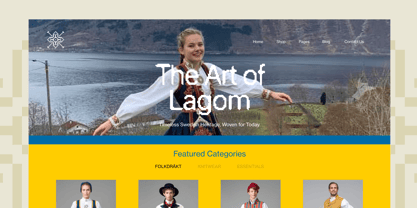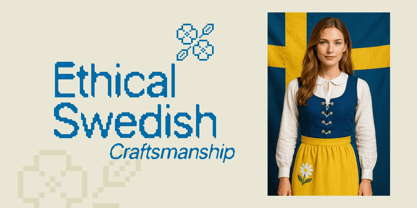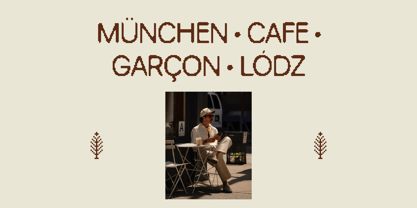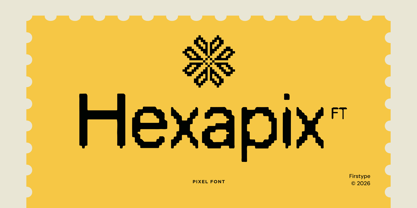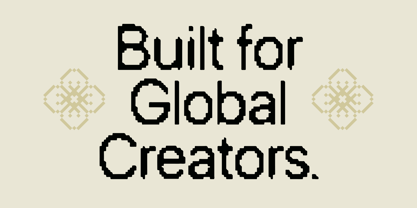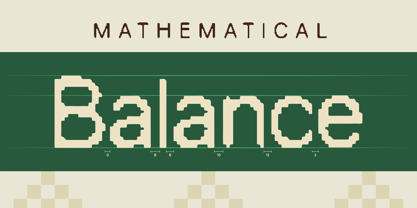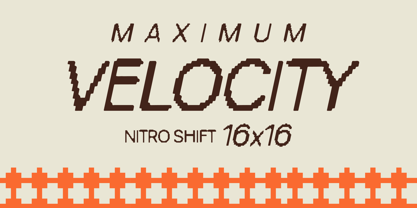
FT Hexapix
The FT Hexapix Font Family was designed by Adrian Syauqi and published by Firstype Studio. FT Hexapix contains 2 styles and family package options. More about this family
Unlock the intersection of tradition and digital precision with FT Hexapix, a modular pixel typeface designed for the modern-day artisan. From building immersive gaming worlds to crafting high-end, minimal editorial layouts, FT Hexapix injects a sense of structural clarity and folk-inspired warmth into every character ✸.✧˖°
Features
• Built on a meticulous 16x16 geometric grid
• Optimized for crisp legibility in digital and print media
• Professional-grade kerning for seamless display
• Versatile weight and style for creative versatility
• Basic Latin
• Western European
• Central European
• Pan-African Latin
• Multilingual support (includes diacritics: ü, ç, ł, etc.)
• 300+ glyphs